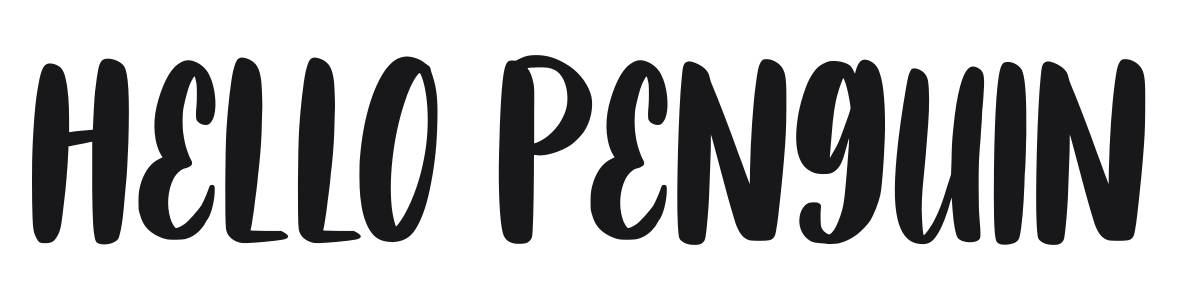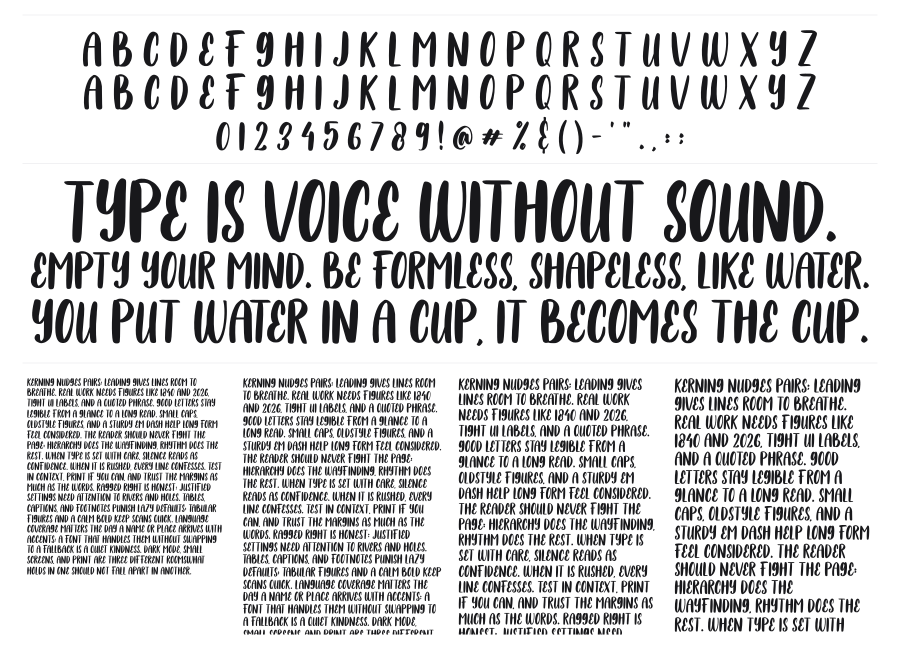
Hello Penguin
Hello Penguin is a bold upright casual script from Fatma Studio with chunky rounded strokes and a hand-lettered marker feel. The low stroke contrast and smooth, blunt terminals give it a warm, approachable energy that works well at large sizes. It suits branding, packaging, and headlines where a friendly human touch is the point.